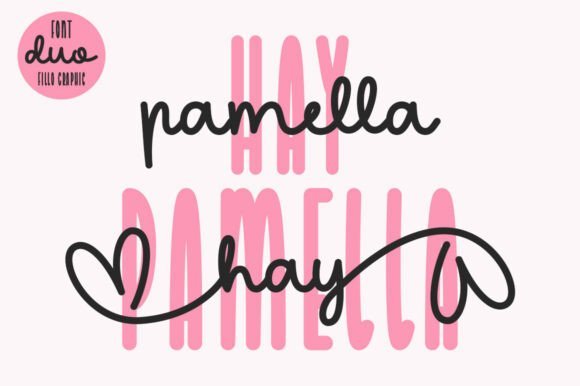
Discover the Perfect Pair: Hay Pamella Font
Introducing Hay Pamella Font, a beautiful pair of handwritten fonts designed to complement each other perfectly. Whether you’re creating a birthday card, a wedding invitation, or a simple greeting, these fonts will add a chic and cheery touch to your craft. With Hay Pamella Font, you can access all glyphs and swashes with ease, thanks to its PUA encoding.
As a designer, you know the value of having the right tools at your disposal. Hay Pamella Font is a valuable addition to any crafty toolkit, offering endless possibilities for creative expression. Whether you’re a seasoned pro or just starting out, this font pair is sure to inspire your next project.
Hay Pamella Font Key Features
- Unique Characteristics: Features a unique blend of modern and vintage elements, with a focus on elegant lines and subtle flourishes
Hay Pamella Font Review
As a designer, I was excited to dive into the Hay Pamella font, and I have to say, it has some amazing features that make it stand out ✨. One of the things I love about this font is its unique blend of modern and vintage styles. The curves are smooth, the lines are crisp, and the overall feel is very elegant.
- Great for titles, headings, and body text
However, as with any font, there are some limitations ⚠️. One thing I’ve noticed is that the font can be a bit too ornate for some designs. If you’re looking for a clean and simple font, Hay Pamella might not be the best choice. Additionally, the font’s high-end feel may make it less accessible for some budgets.
Overall, I think Hay Pamella is a great font for designers who want to add a touch of sophistication and elegance to their projects. It’s perfect for luxury brands, high-end fashion, or any design that needs a bit of flair. Just be aware of its limitations and use it accordingly.
Hay Pamella Font is a beautiful, elegant script font that is perfect for:
- Formal event invitations
- Wedding and event planning materials
Remember to use Hay Pamella Font in a way that complements the overall design and aesthetic of your project.